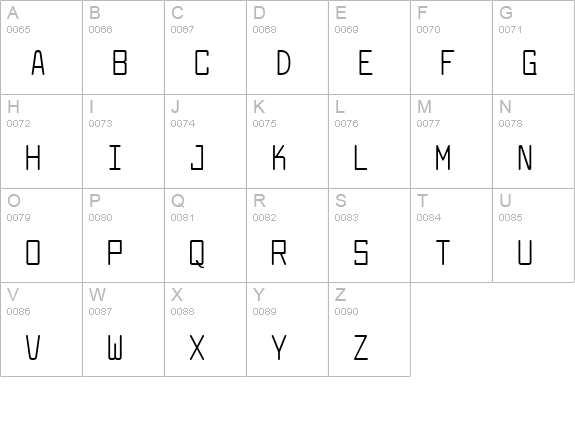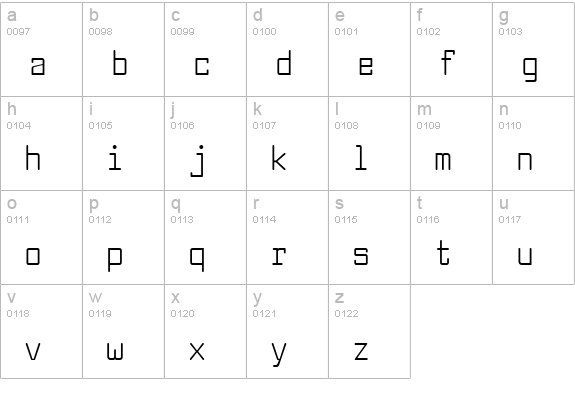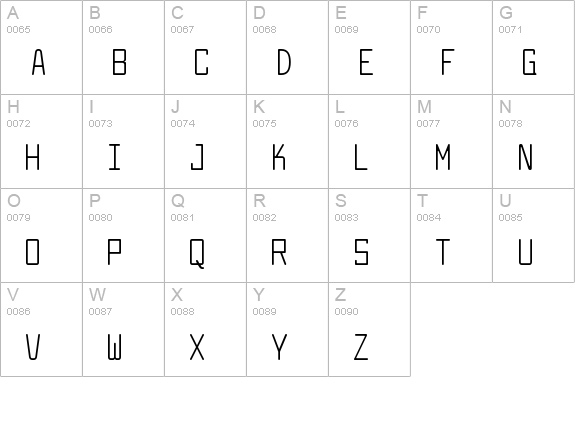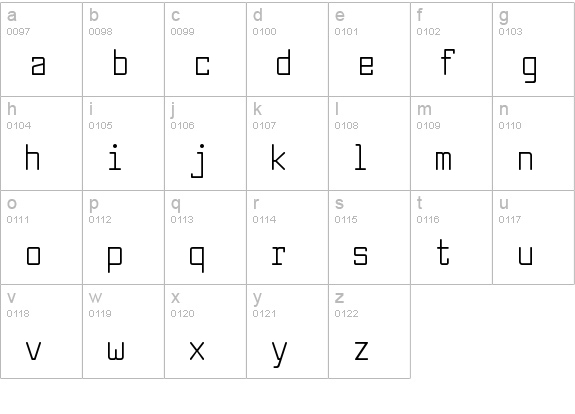
Larabiefont Condensed is a distinctive, condensed-width variant in the Larabiefont typeface family \xE2\x80\x94 well suited to design and typography projects.
Larabiefont Condensed is a sleek and modern font that exudes sophistication and elegance. Its condensed design allows for a more compact and streamlined appearance, making it perfect for headlines, branding, and other design projects where space is limited. The sharp lines and clean curves of Larabiefont Condensed give it a contemporary and refined look that will elevate any design it is used in. What makes Larabiefont Condensed even more appealing is that it is available for free download at FontsMarket.com. This means that you can access this stylish font without any cost, making it a fantastic choice for designers looking to add a touch of class to their creations without breaking the bank. Don't miss the opportunity to enhance your projects with the timeless beauty of Larabiefont Condensed, now easily accessible for free at FontsMarket.com.